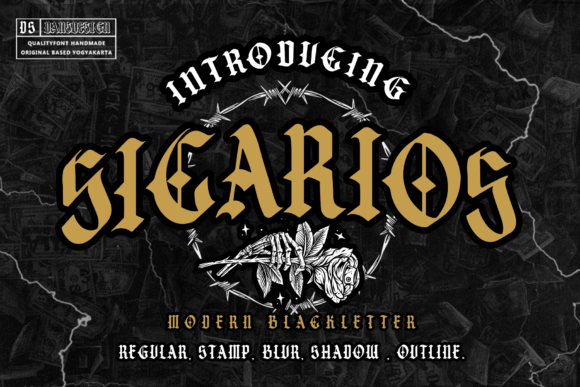
Introducing Sicarios Font – The Ultimate Blackletter Masterpiece for Unforgettable Designs
Unleash your creativity with Sicarios Font, a breathtaking blackletter font that commands attention and leaves a lasting impression. This extraordinary font is meticulously crafted to embody authenticity and assertiveness, providing an unparalleled visual experience that will set your designs apart. Prepare to embark on a typographic journey like no other as you explore the limitless possibilities of Sicarios Font.
Sicarios Font: A Timeless Classic for Bold and Distinct Designs
Indulge in the beauty of Sicarios Font, a timeless blackletter font that exudes confidence and sophistication. With its meticulously designed characters and intricate details, this font effortlessly elevates any project it graces. Whether you're creating captivating web designs, eye-catching business cards, or any other project that demands a bold and distinct touch, Sicarios Font is your ultimate choice.
Unleash Your Creative Potential with Sicarios Font
Unlock your creative potential and witness the transformative power of Sicarios Font. This versatile blackletter font empowers you to express yourself with unparalleled style and individuality. From captivating logos and branding elements to stunning posters and flyers, Sicarios Font seamlessly adapts to your creative vision, ensuring that your designs leave an unforgettable mark.
A Font That Speaks Volumes
Sicarios Font is more than just a collection of characters; it's an artistic expression that speaks volumes about your brand or project. With its bold and assertive personality, this font conveys a sense of strength, authority, and unwavering determination. Whether you're aiming to make a statement, evoke emotions, or simply create a lasting impression, Sicarios Font delivers every time.
The Perfect Font for T-Shirt Designs That Make a Statement
Step into the world of fashion and elevate your T-shirt designs with Sicarios Font. This powerful blackletter font adds an instant touch of edginess and personality to your creations. Imagine your designs adorned with the bold and striking characters of Sicarios Font, commanding attention wherever they go. Unleash your inner artist and let Sicarios Font transform your T-shirts into wearable masterpieces.
A Font That Inspires and Empowers
With Sicarios Font, you're not just downloading a font; you're embracing a creative force that ignites your imagination and empowers you to achieve design greatness. Whether you're a seasoned professional or just starting your creative journey, Sicarios Font becomes your trusted companion, guiding you towards exceptional results. Embrace the limitless possibilities and watch as your designs come to life with a captivating new identity.